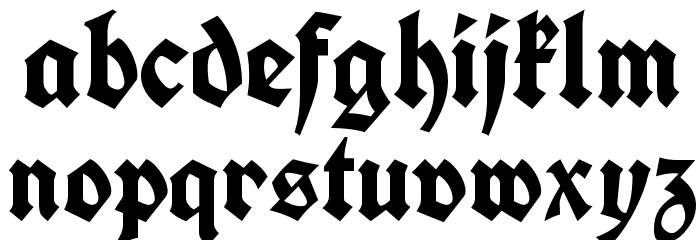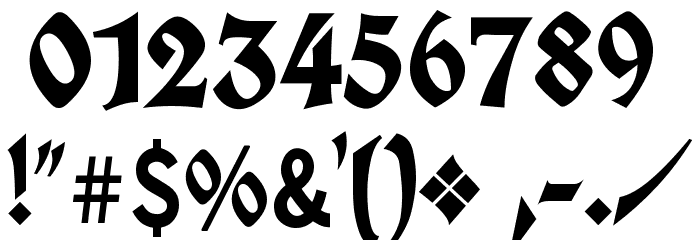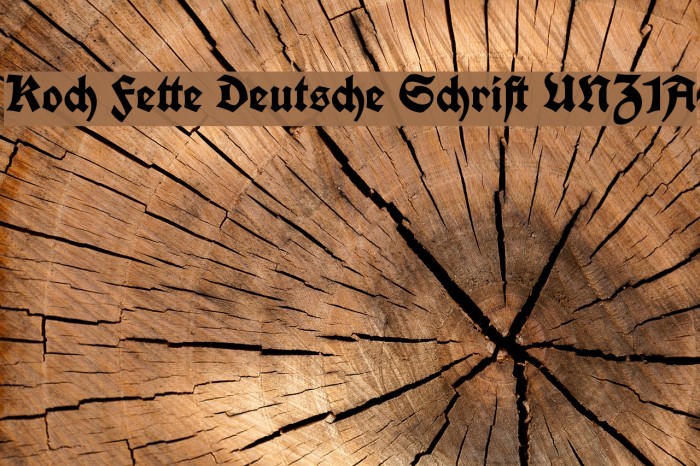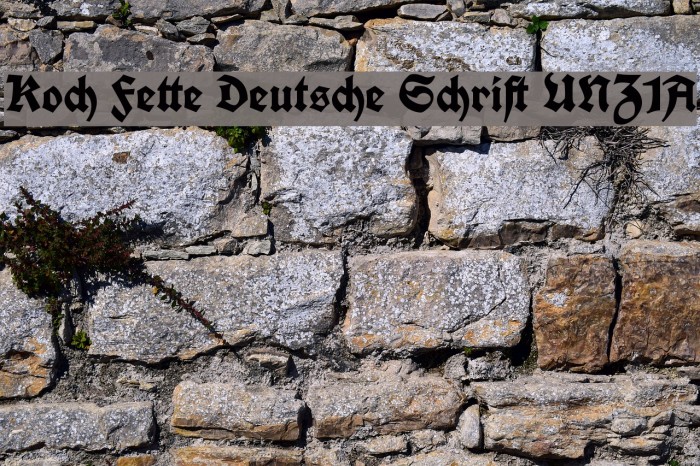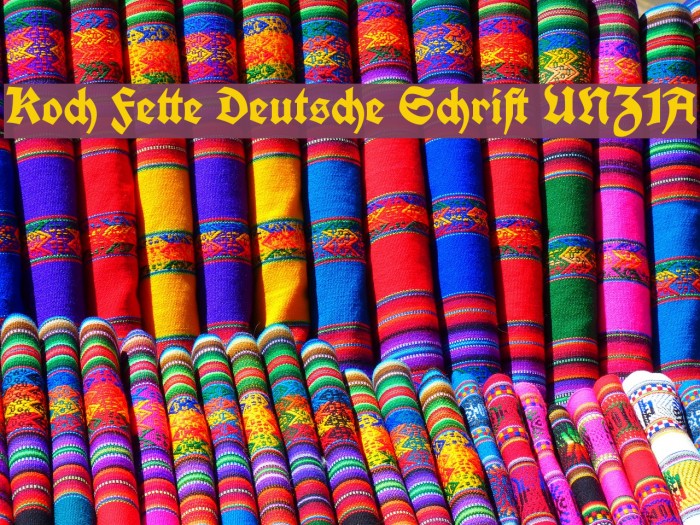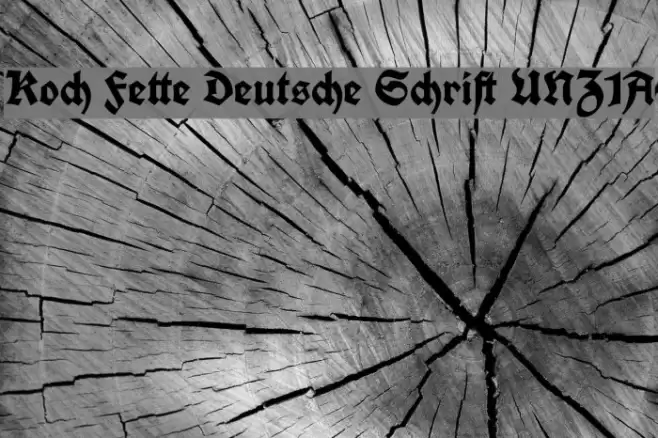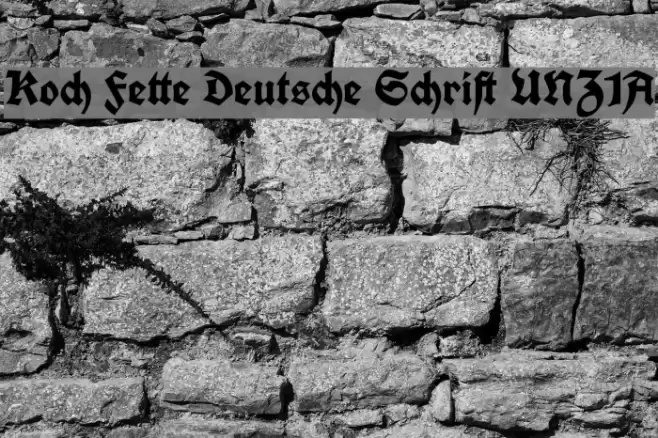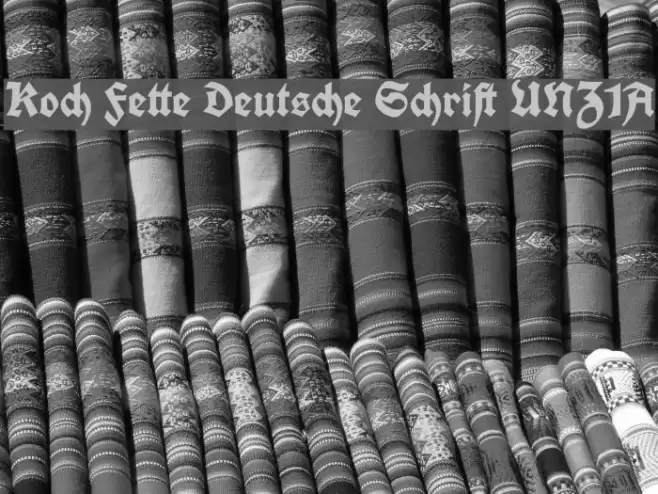
Koch Fette Deutsche Schrift UNZ1A Font
This font exhibits a bold and striking blackletter style, characterized by its sharp, angular lines and intricate detailing. The uppercase letters are particularly ornate, with dramatic flourishes and a strong presence. The lowercase letters maintain the same level of detail, offering a cohesive look throughout the alphabet. The numerals are equally bold, with a consistent weight that matches the letters. Special characters are designed with the same attention to detail, ensuring they blend seamlessly with the rest of the font. This typeface is reminiscent of traditional German script, offering a historical and authoritative feel.
A bold, intricate blackletter font with sharp, angular lines and a historical feel.
- Proposed Projects: Ideal for projects requiring a historical or traditional touch, such as certificates, invitations, or branding for heritage products.
- Overall Style: Vintage
- Use Case: Logos, Headlines, Decorative text